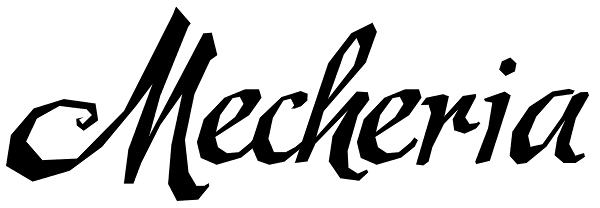
Mecheria
Mecheria conjures up images of a far off place in another time. At first glance, it's delicately rounded and brimming with sensuous swashes. Enigmatic, exotic, slightly goth, Mecheria reveals only a tantalizing glimpse of its potential. It's a font...